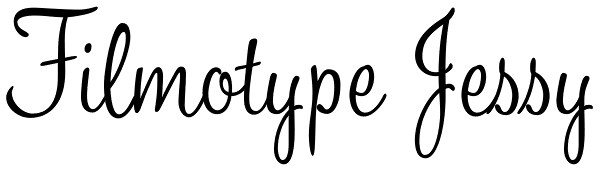
Filmotype Jessy
Filmotype Jessy with its flowing handwritten style was released by Filmotype in late 1950s to expand its Scripts category. Filmotype Jessy was developed from the original font filmstrips and includes a full international character compliment...